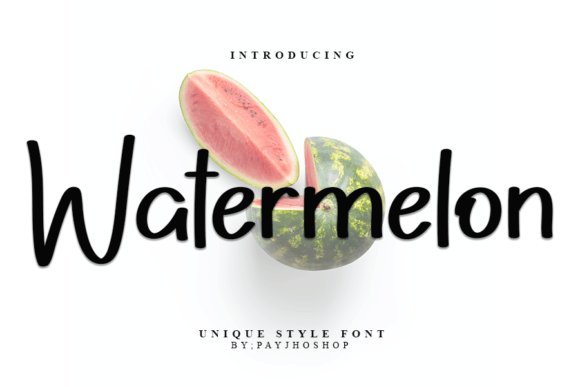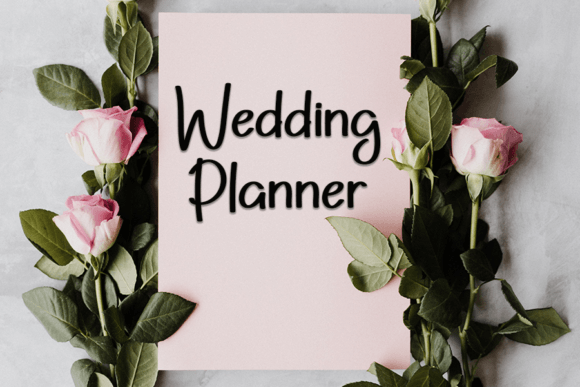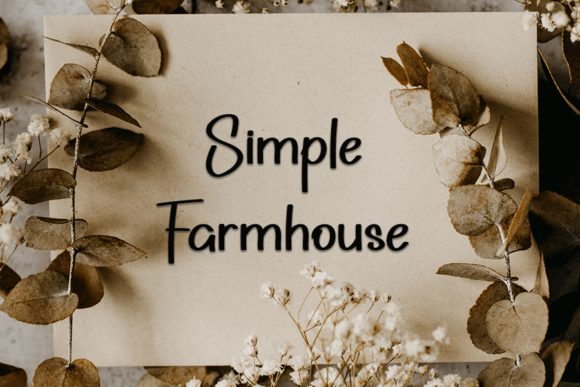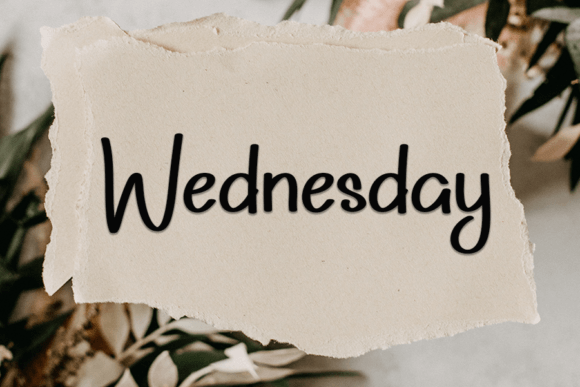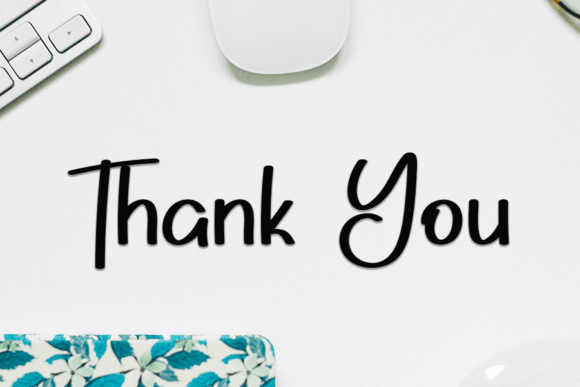
Watermelon Font
What Is Watermelon Font?
Watermelon is a unique and beautiful script font created to bring elegance and style to any design. Each letter features smooth curves and carefully crafted details, making it perfect for projects that need a personal and refined touch. If you’re searching for a typeface that feels fresh and inviting, Watermelon is an excellent choice.
You’ll love how effortlessly it turns your text into something eye-catching and professional.
Watermelon is a versatile font that works across a wide variety of projects. For example, it looks wonderful in crafts. Whether you’re designing stickers, labels, or handmade gifts, this font adds an elegant yet playful feel.
It’s also perfect for digital design. Use Watermelon for website banners, social media graphics, and promotional materials. Its smooth lines and stylish flair will help your content stand out in any setting.
If you need a beautiful font for presentations, Watermelon has you covered. Your slides will feel polished and cohesive, making it easier to engage your audience.
Additionally, Watermelon is a fantastic choice for greeting cards and invitations. Whether you’re celebrating a birthday, a wedding, or a holiday, this font makes every message feel warm and personal.
Why Choose Watermelon Font?
There are many reasons to add Watermelon to your font library. First, it stays clean and legible at any size. Whether you’re using it for big headlines or small captions, every letter remains clear and elegant.
It pairs beautifully with both serif and sans-serif fonts, so you can create layouts that look professional and balanced.
Watermelon is fully PUA encoded. This means you can access all swashes, alternates, and special glyphs without any extra software. Customizing your text becomes fast and fun.
How Will It Improve Your Designs?
Watermelon adds personality, charm, and sophistication to any project. If you want your designs to feel fresh and distinctive, this font is the perfect way to achieve that.
Even simple layouts come alive with Watermelon’s smooth strokes and unique style. Whether you’re designing invitations, labels, or social media posts, your work will stand out and leave a lasting impression.
Using a premium-quality script font shows your attention to detail and builds trust with your audience.
Watermelon is more than just a font—it’s a creative tool that helps you express your ideas with style and warmth. From crafts and digital designs to presentations and greeting cards, it adds a unique touch that elevates every project.